Great custom t-shirt design can accomplish a lot of things. Ideally, your t-shirt should represent your brand well, look fantastic, and clearly communicate a message that makes the wearer proud. When aiming to create a t-shirt design with all of these elements, there is perhaps nothing more important than choosing the perfect typeface(s). Check out our guide to effectively using fonts in your t-shirt designs, plus 20 free t-shirt font downloads.
Why Choosing The Right Font Is Worth The Time
Unless your around fonts a lot, spending time sifting through all of them to find the right one can be tedious and monotonous. However, it’s absolutely worth it to do, because even the most subtle differences in font can make a world’s difference.
Steve Jobs, founder of Apple, didn’t underestimate the importance of fonts in design. After dropping out from college, he decided to take a class in typography, which he credited with playing a major role in Apple’s success. Jobs on that class: “If I had never dropped in on that single course in college, the Mac would have never had multiple typefaces or proportionally spaced fonts.”
The Importance of Type and Design is also what causes Apple to pour tons of resources and an in-house design team into creating a new custom typeface, San Francisco, to replace the incredibly similar one they used prior, Helvetica Neue.
The takeaway: this stuff matters.
How to Choose a Font: Types, And What They’re Good For
Choosing a typeface is like any other art form; there are best practices and suggestions to follow, but ultimately, it can come down to personal preference. That being said, following some suggestions can help you arrive at your perfect typeface a lot faster. So lets cover the four basic types of fonts, and what each one is good for.
Types of Fonts
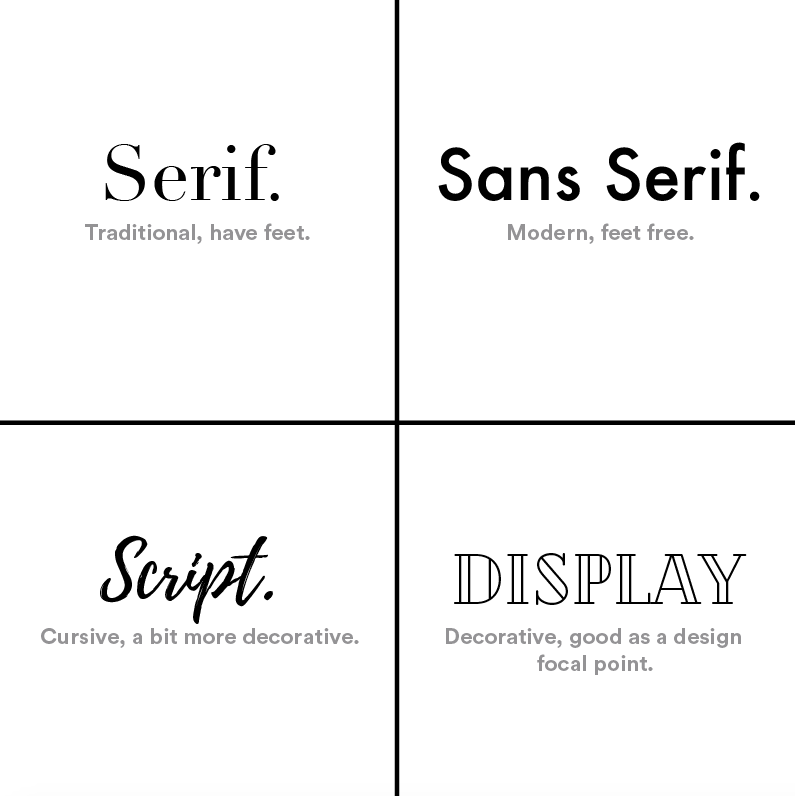
The graphic above shows the four biggest font types: Serif, Sans Serif, Script, and Display (or Decorative). The top two, Serif and Sans Serif, are both commonly used for smaller text in a design because they’re very legible, but not all that exciting. Script and Display fonts, however, typically serve best as the focal point of a t-shirt design. Since they’re unique and exciting, these are often the elements you want to design around.
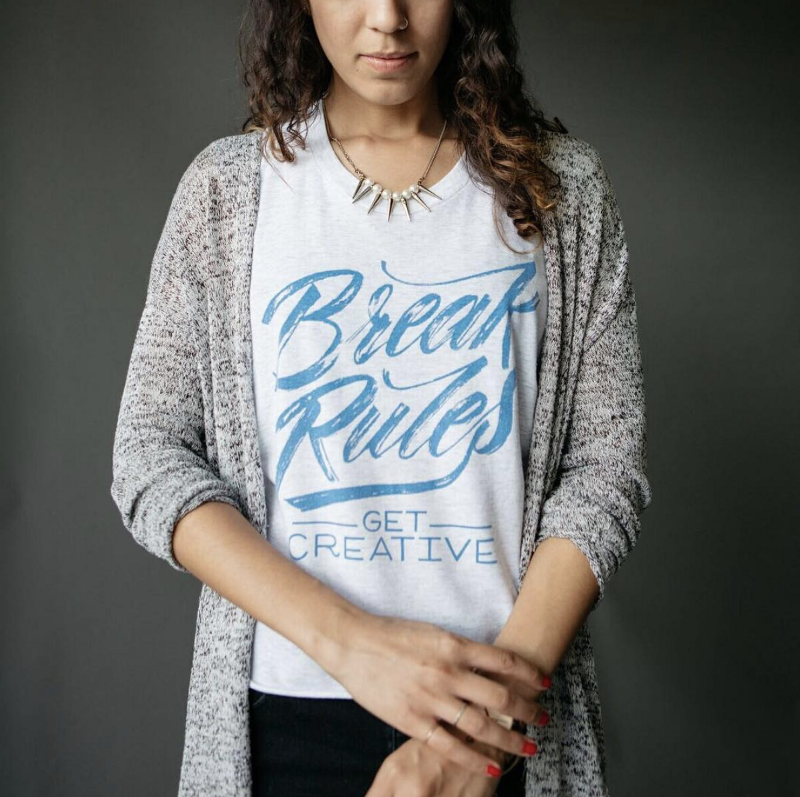
The shirt above is a great example. The focal point of the t-shirt design is this really cool custom script typeface with some neat texturing, supplemented nicely with an easy-to-read font below. Ironically, this shirt follows all of the rules.
Like we said earlier though (and is reiterated by the design above), rules are made to be broken, and when broken in the right context, can create something really special.
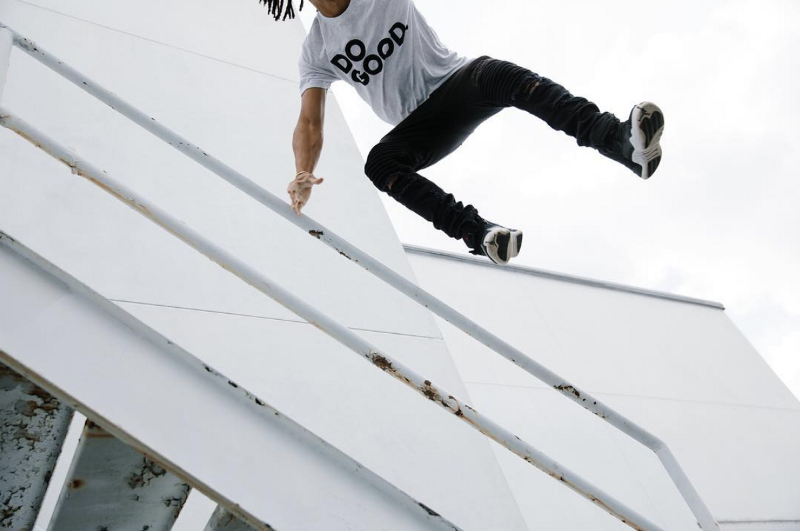
We mentioned that Script and Display fonts are best as focal points, while Serif and Sans Serif are best for support text. The t-shirt above smashes that rule though. It’s a Sans Serif font in black, on a white t-shirt — couldn’t sound more boring. However, it looks great! The straightforward message paired with the no-nonsense feel of this design makes it work really well. So, don’t be afraid to break rules where you see it fit.
How to Choose Your Font
Once you know the main font types and what they’re good for, choosing one for your design will be a lot easier. Asking these three questions will help you narrow down your font options.
Who am I designing for?
This question is important to ask in just about everything you do, and holds true when designing t-shirts, too. If you’re the marketing department of a tech company, odds are you’ll want to use a nice, clean Sans Serif font. Or, if you make motorcycle inspired clothing brand, you may want to stay clear of curly or bubbly script fonts, and opt for something a bit more rugged.
What message am I trying to get across?
It may sound silly, and maybe a bit subjective, but different fonts are going to feel differently to people, and feeling can be really important. Do you want your t-shirt design to have a warm, friendly feel? Or something a little more bold and straightforward?
What matters more: looks or readability?
This is an important question, as it should have a very heavy influence on the visual elements of your design. If getting your message across loud and clear is of the upmost importance, you’ll want to go with a font that is easy to read. However, if the design itself is more important than the actual words, then choosing a decorative display font might be the way to go.
10 Great Fonts, and Where To Download Them
Fonts used to be pretty hard to come by, but nowadays they’re so easy to find that the volume of choices makes it overwhelming. So, we decided to sift through for you and pluck out 10 of our favorite free fonts for t-shirt design, including the link to download them (click the font name to download).
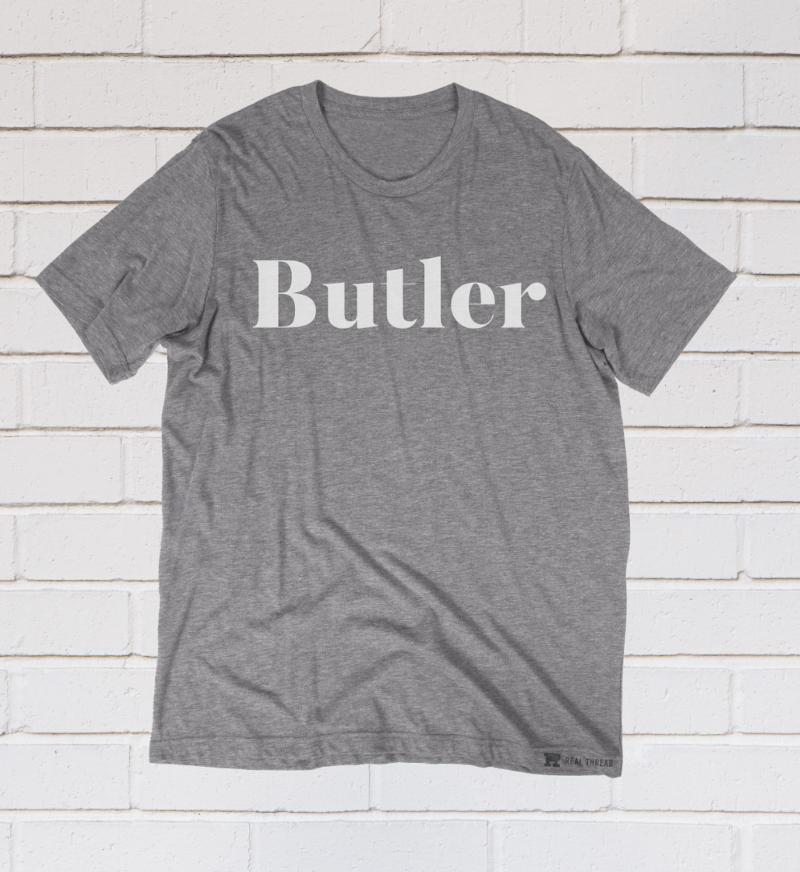
Le Super Serif: Serif
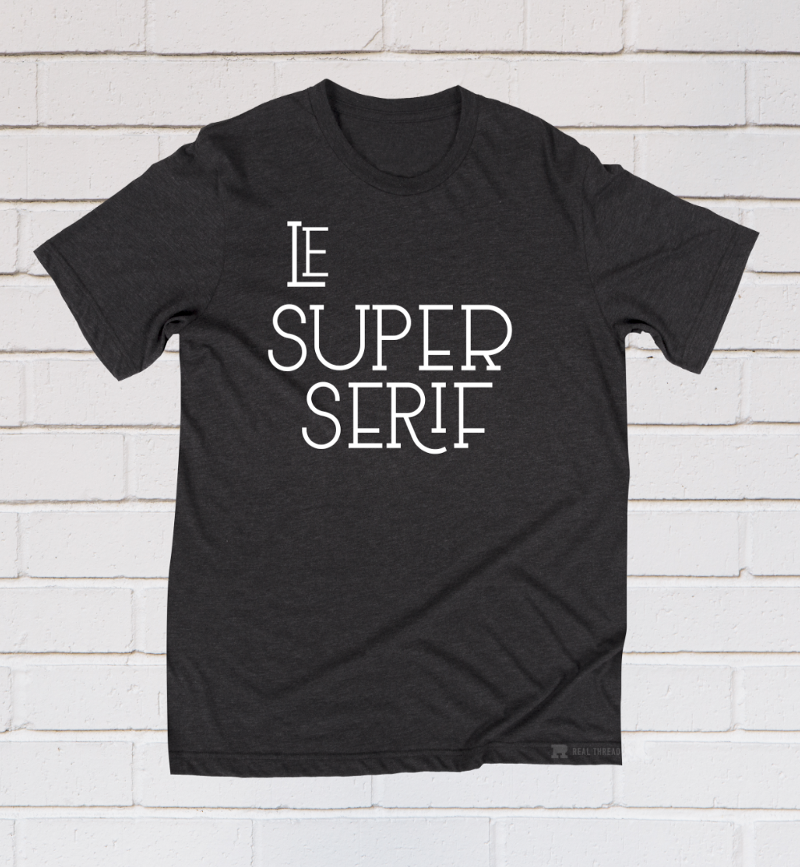
Montserrat: Sans Serif
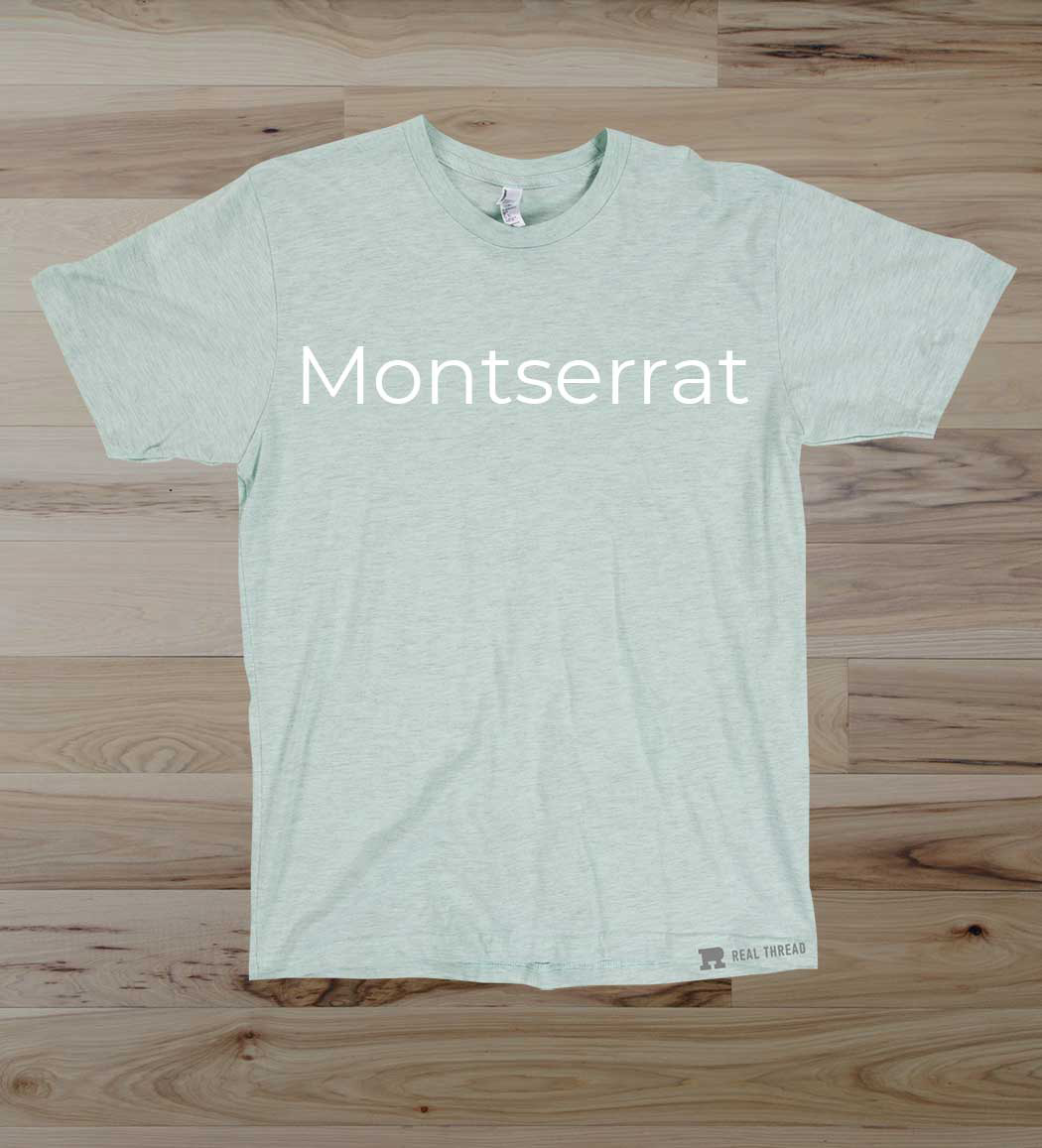
Festival: Script
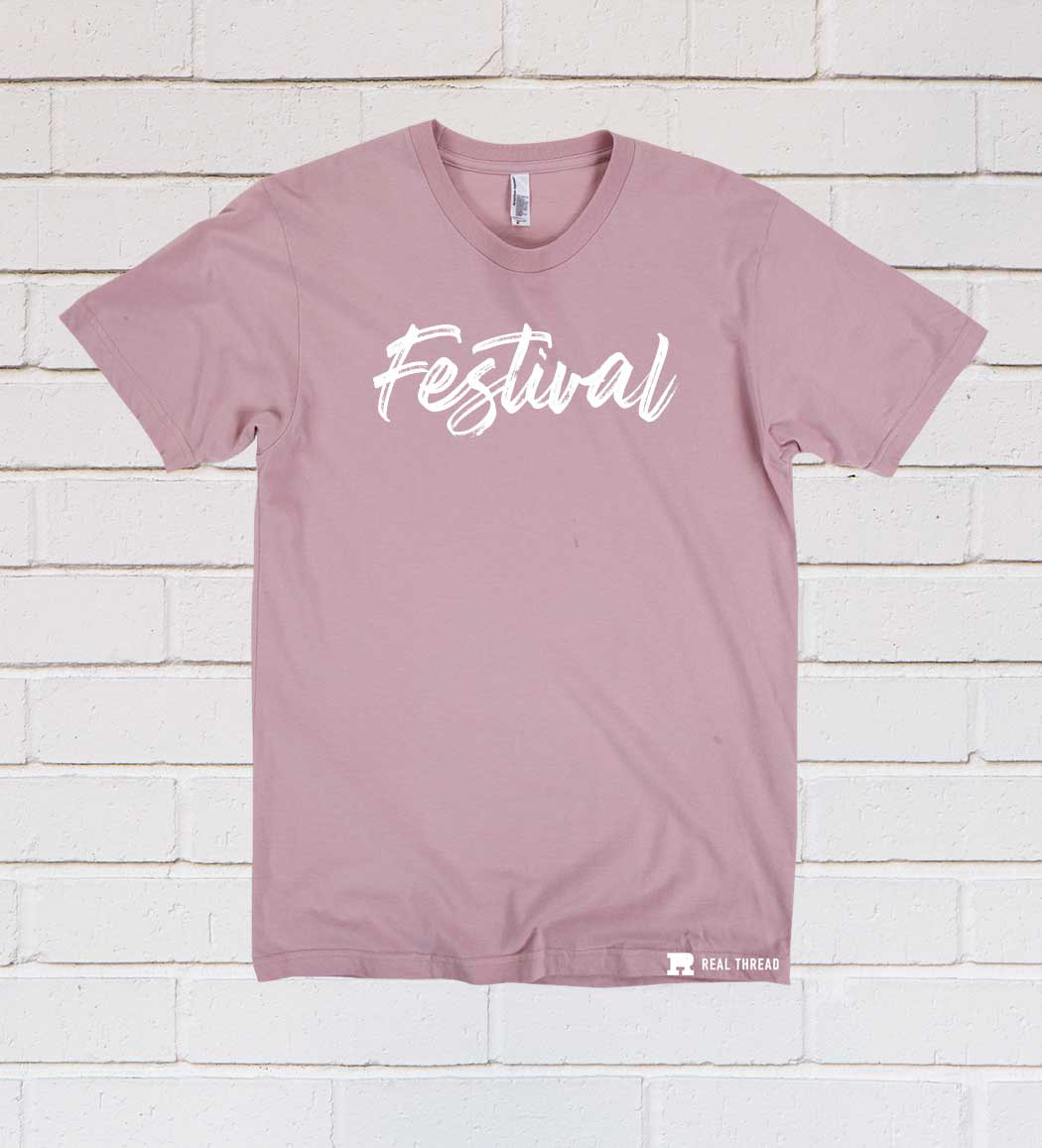
MOM: Decorative
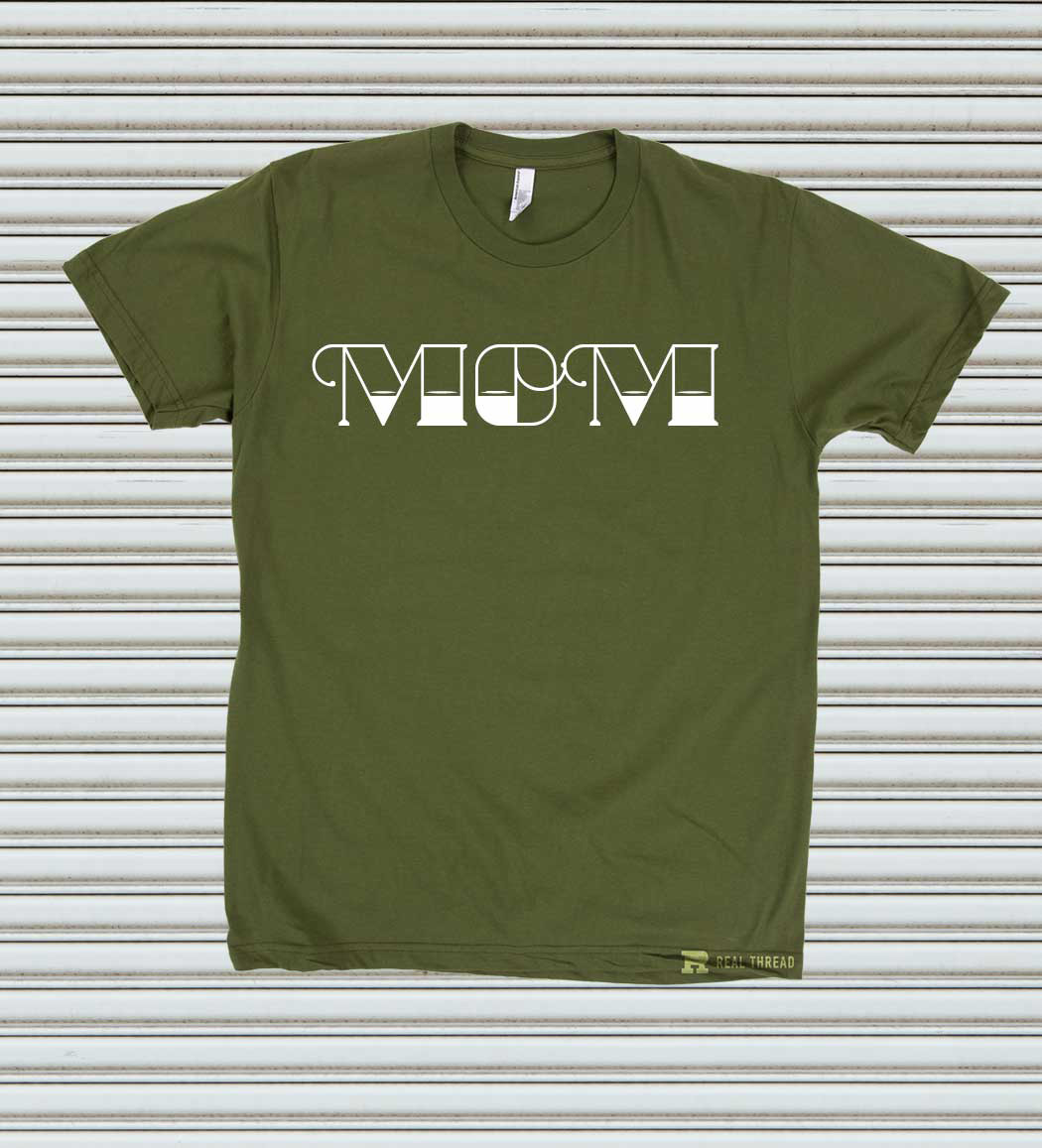
Stanley: Serif
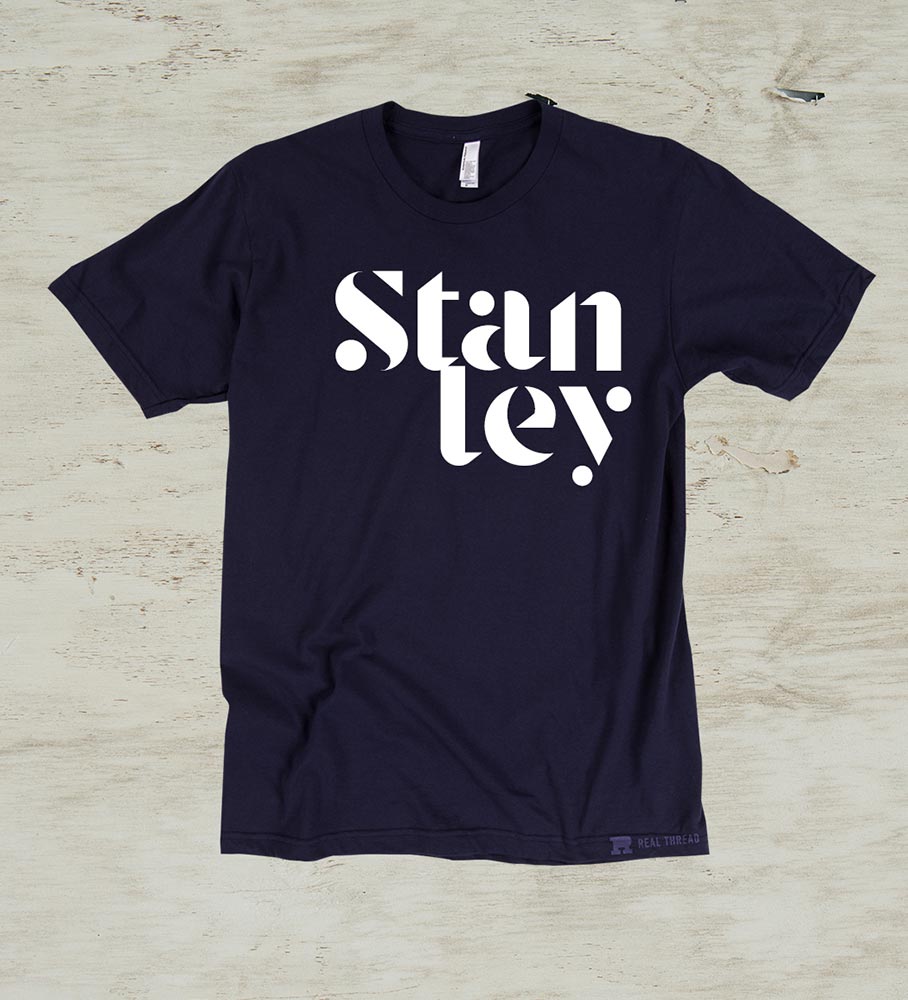
Apex: Sans Serif
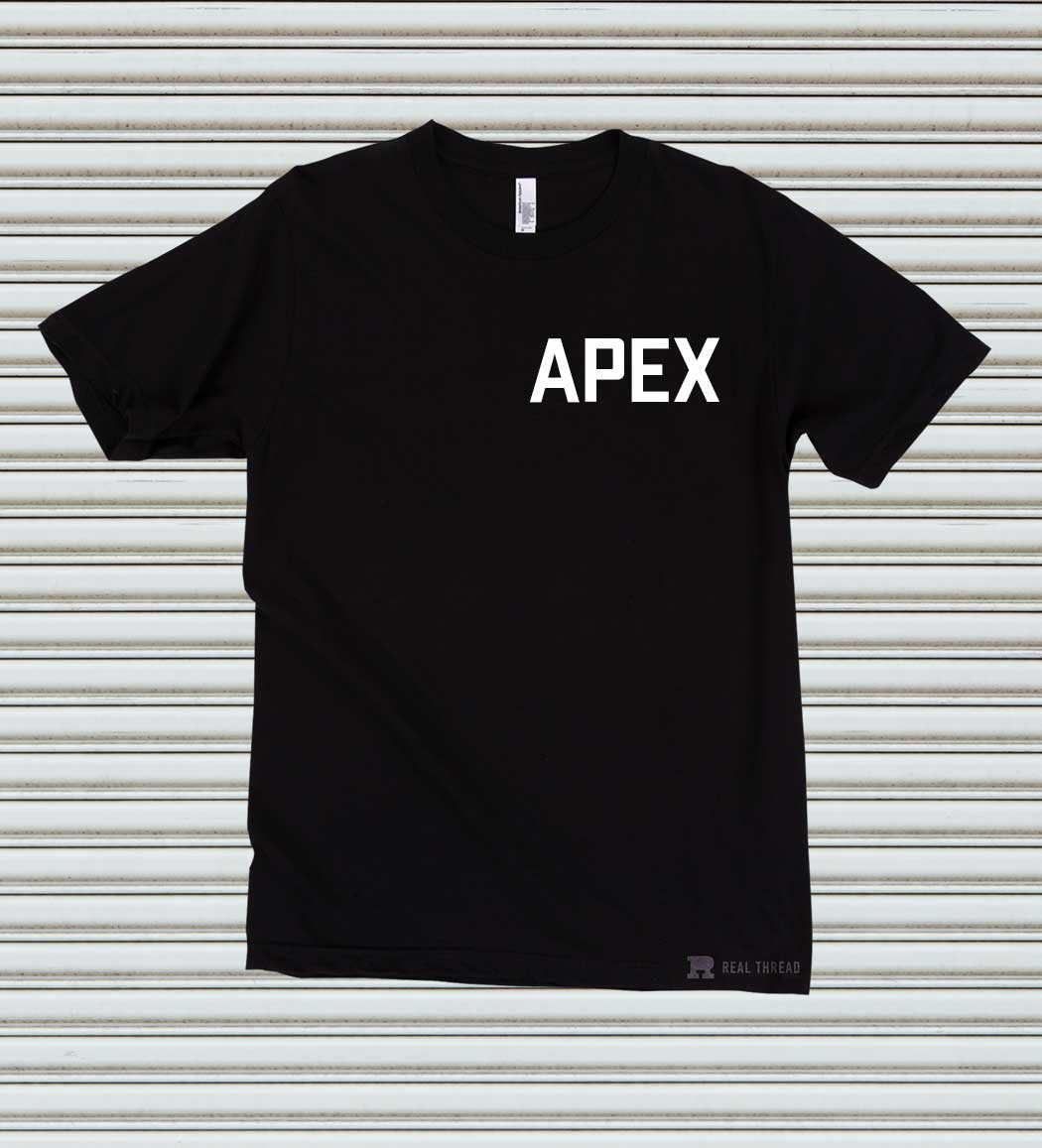
Julietta Messie: Script
Moalang: Serif
Westfalia: Decorative
Hello Stockholm: Script
Polya: Decorative